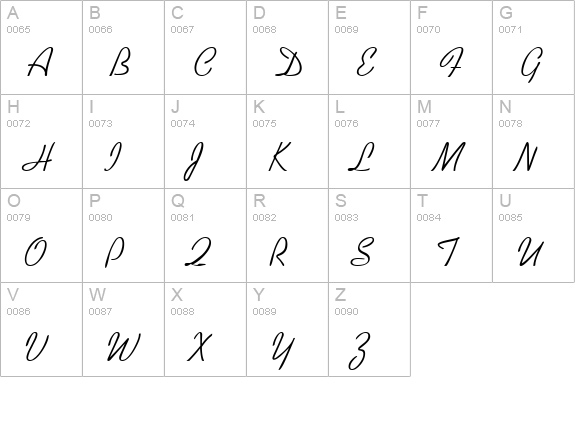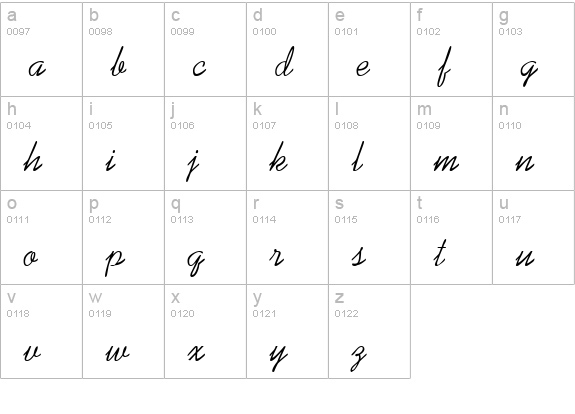
TR Koala Plain Font Details
TR Koala Plain is a modern and versatile font that combines elegance with simplicity. With its clean lines and smooth curves, this typeface is perfect for a wide range of design projects, from branding to editorial layouts. Its timeless appeal makes it suitable for both digital and print applications, ensuring that your message is conveyed with clarity and style. The best part? TR Koala Plain is available for free download at FontsMarket.com. This means that you can easily access this high-quality font without any cost, making it a valuable addition to your font library. Don't miss out on the opportunity to enhance your designs with the sophisticated charm of TR Koala Plain - download it today and let your creativity shine!